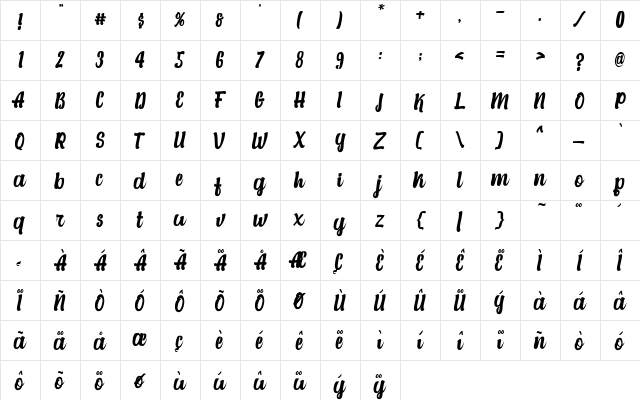
Alexandria Script Medium
| Foundry | Debut Studio |
| Designer | Debut Studio |
Design Context for Alexandria Script Typeface
Alexandria Script brings a calligraphic fluidity to the page — its connecting strokes and expressive curves give it an unmistakably human quality.
Font Pairing: Combine Alexandria Script with a simple geometric sans for maximum contrast — the tension between flowing curves and clean structure is a classic typographic pairing.
Pro Tip: Use Alexandria Script for short runs of text — names, titles, or taglines. Extended body copy in script faces tires the eye quickly.